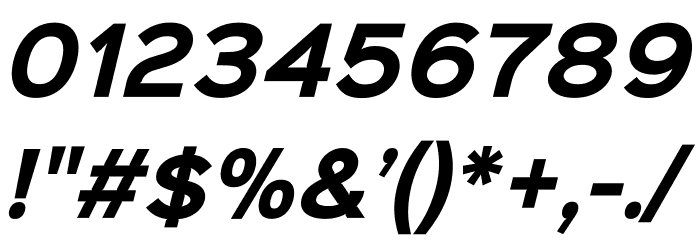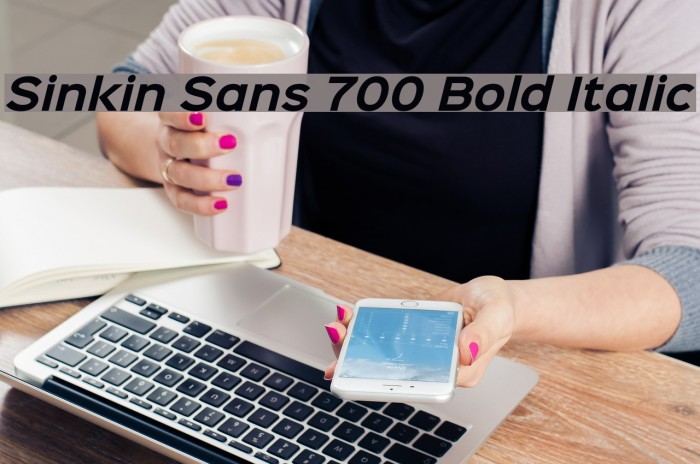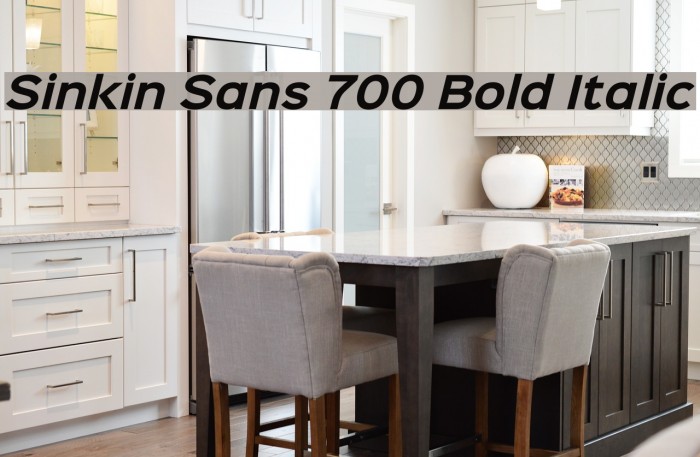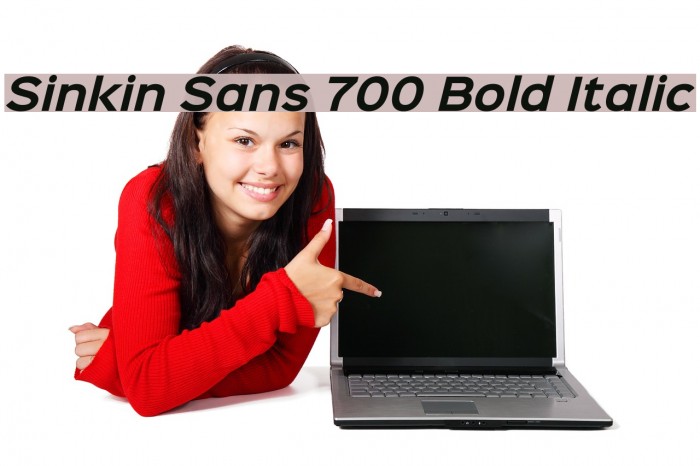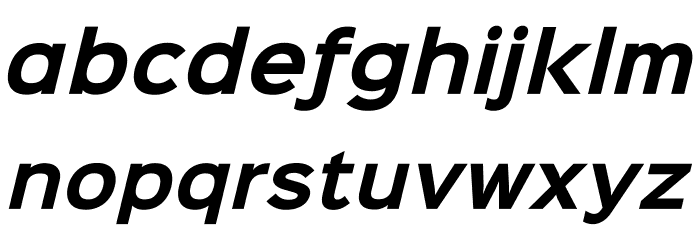
Sinkin Sans 700 Bold Italic Font
Sinkin Sans 700 Bold Italic Description
This font exhibits a modern sans-serif style with a bold and italicized appearance. The characters are sleek and streamlined, offering a contemporary look that is both professional and approachable. The uppercase and lowercase letters maintain a consistent design, with smooth curves and clean lines. The numerals are clear and easy to read, making them suitable for various applications. Special characters are well-integrated, ensuring versatility in usage. The overall design is balanced, with a slight forward slant that adds dynamism and energy to the text.
A modern, bold, and italic sans-serif font with a sleek and dynamic style from Uncategorized fonts.
- Proposed Projects: Ideal for branding, advertising, headlines, and digital content where a modern and bold statement is desired.